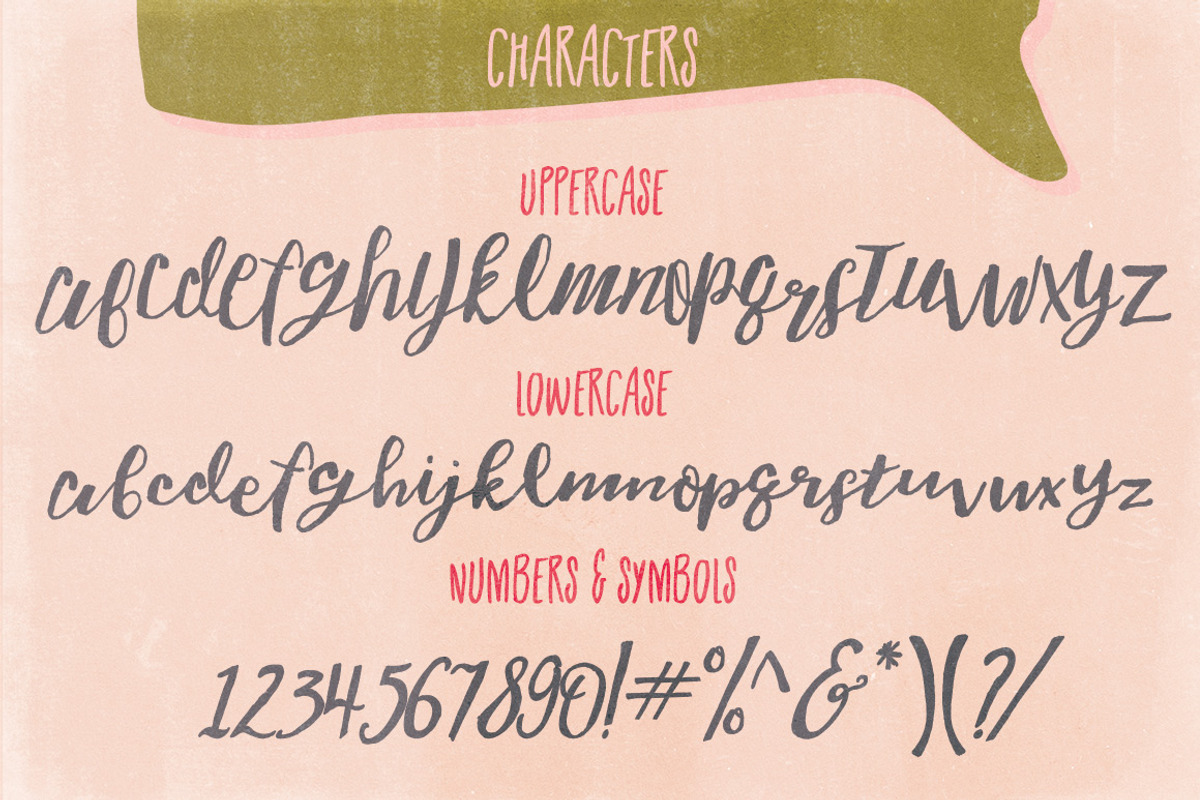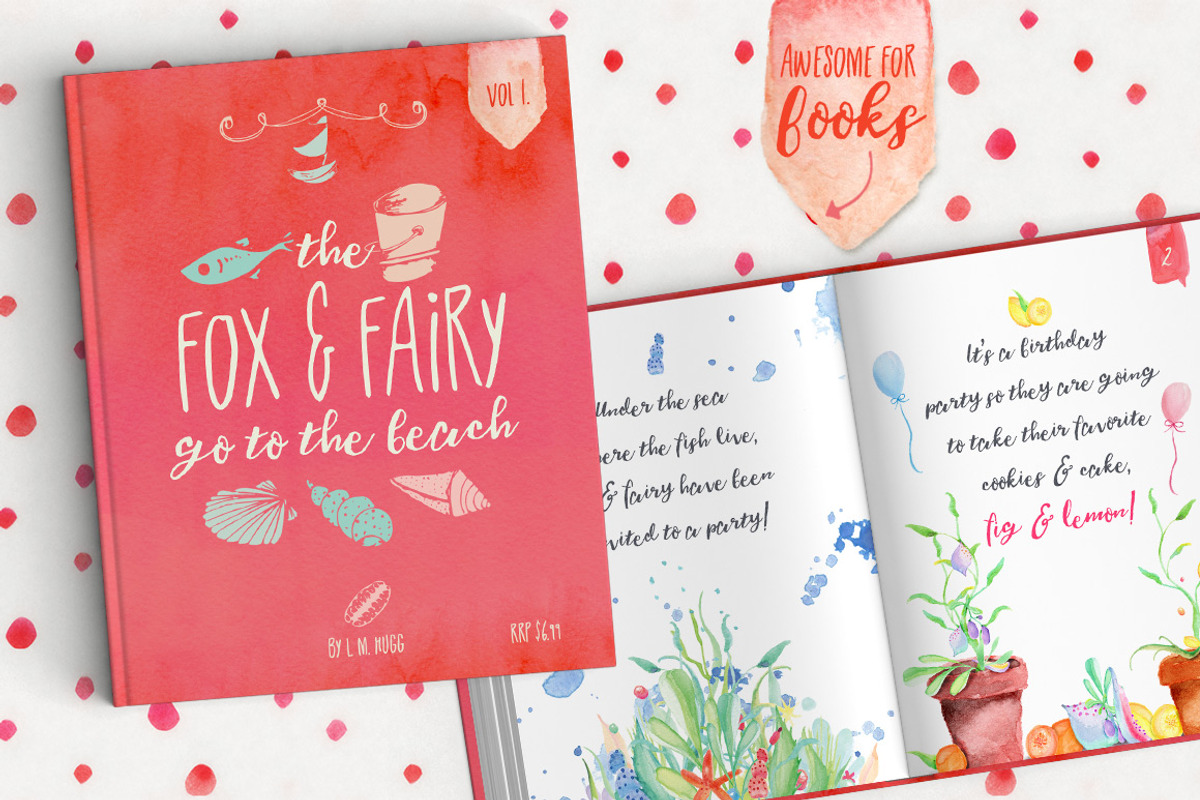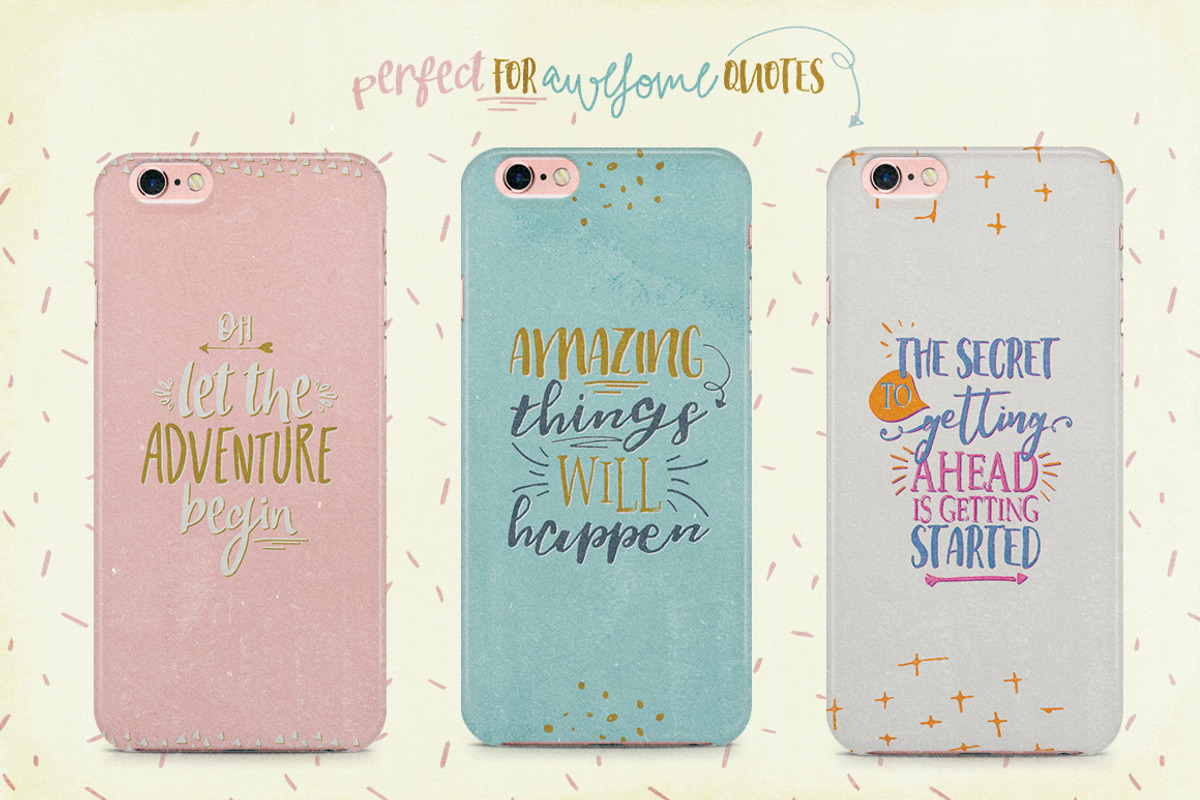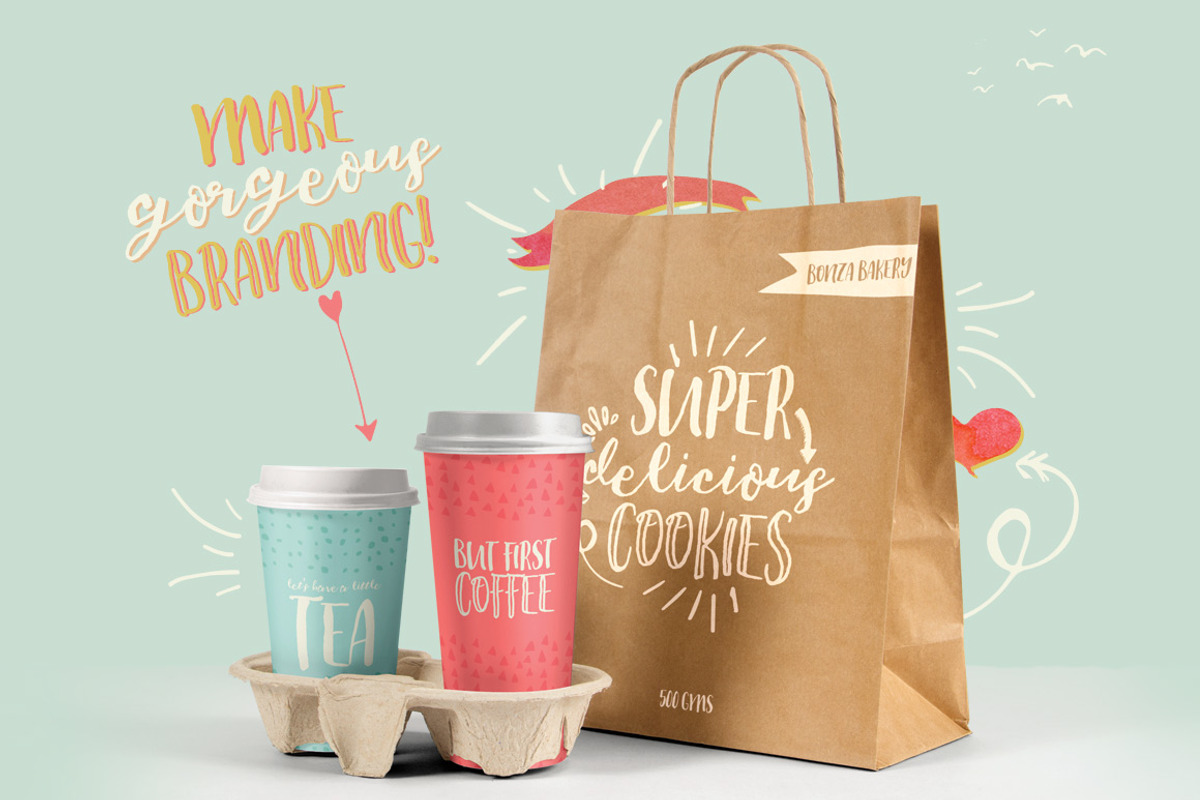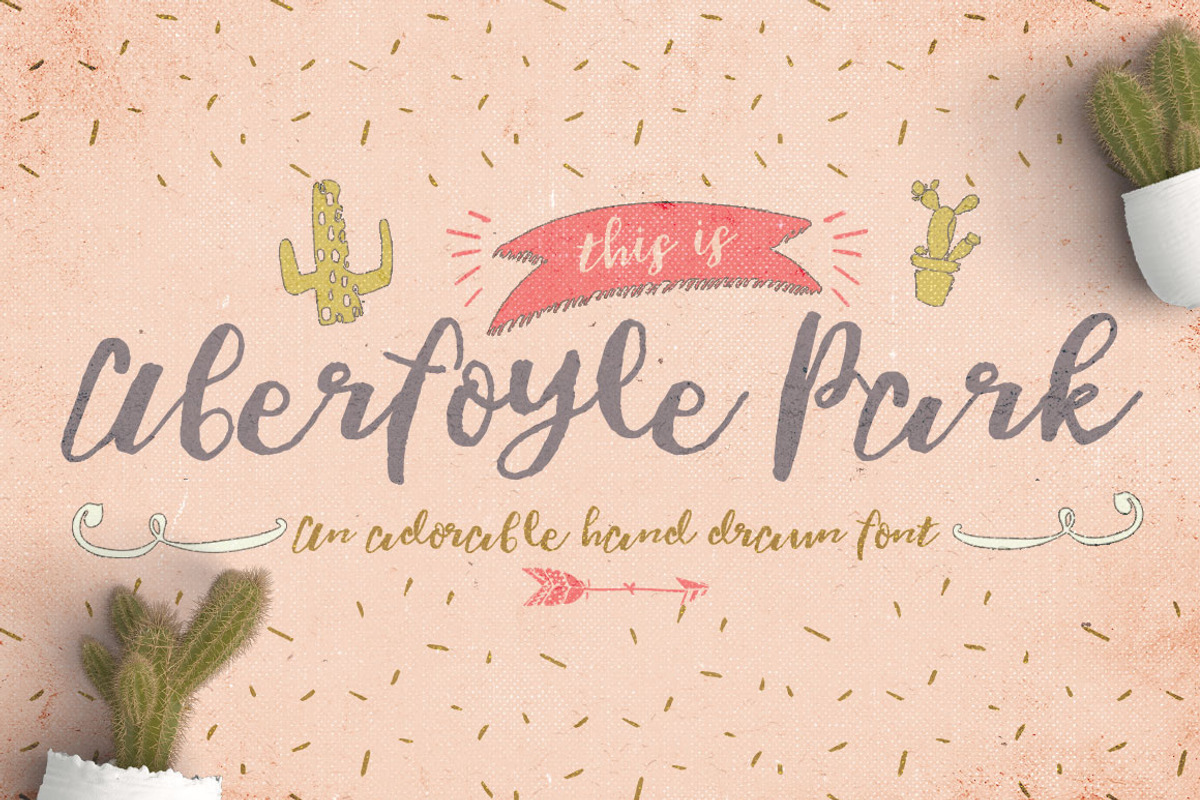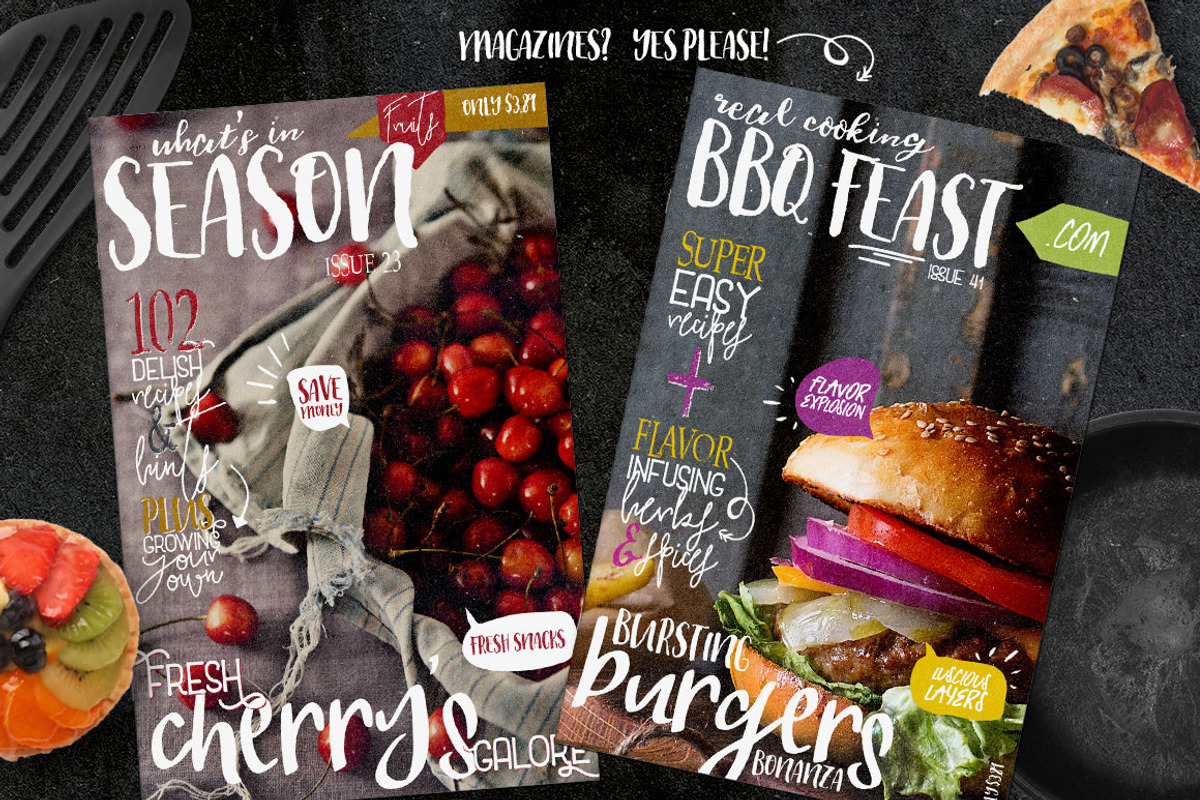
Aberfoyle Park Script Font
Aberfoyle Park Script Font by Creativeqube Design is a font selected for branding, posters, packaging, typography.
Why Aberfoyle Park Script Font is worth a look
Aberfoyle Park Script Font by Creativeqube Design fits naturally into Branding, posters, packaging, typography.